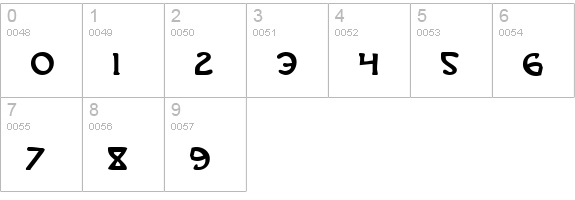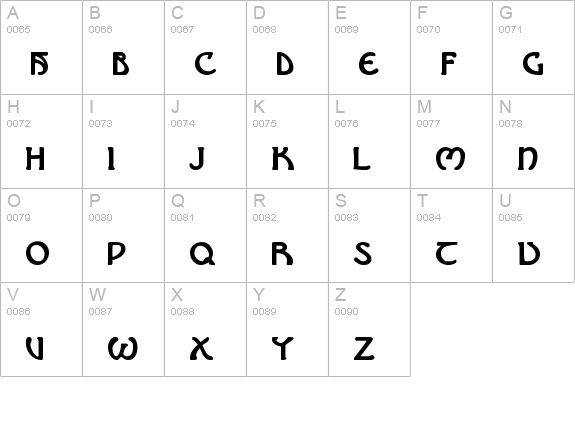
Brin Athyn Bold Font Details
Brin Athyn Bold is a strong, high-contrast variant in the Brin typeface family \xE2\x80\x94 well suited to headlines, attention-grabbing titles, and strong calls-to-action.
Brin Athyn Bold font is a striking and modern typeface that exudes confidence and boldness. With its strong, clean lines and sleek design, this font is perfect for making a statement in any project. Whether you're designing a logo, poster, or website, Brin Athyn Bold will be sure to grab attention and leave a lasting impression. The best part? Brin Athyn Bold font is completely free to download at FontsMarket.com. This means you can elevate your designs without breaking the bank. Don't miss out on this fantastic opportunity to add a touch of boldness to your projects with Brin Athyn Bold font.